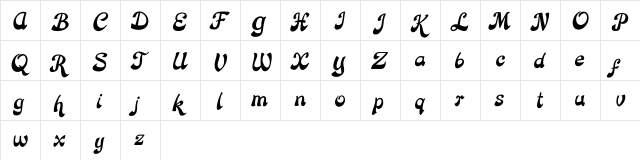
Rose Katrinah Italic Font Preview
Rose Katrinah Italic Rose Katrinah Italic
Rose Katrinah Italic Font Details
Design Context for Rose Katrinah Italic Typeface
Rose Katrinah Italic takes a measured approach to typography — its balanced proportions and neutral character make it a reliable workhorse for both digital and print work. Its italic angle brings a sense of urgency and motion to the letterforms.
Pro Tip: Use Rose Katrinah Italic for emphasis, pull quotes, and subheadings where its slanted energy can add rhythm to the layout.